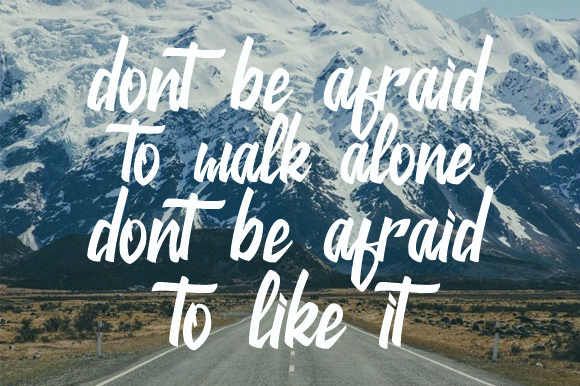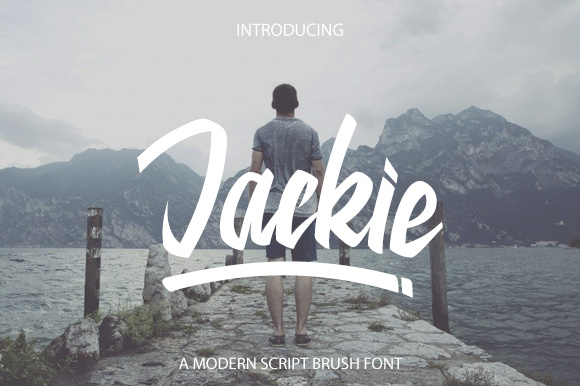
Jackie Script
Jackie Script Font
Jackie is a bold, modern hand lettering script with a strong style and dramatic movements. It’s allowing you to create beautiful hand-made typography in an instant.